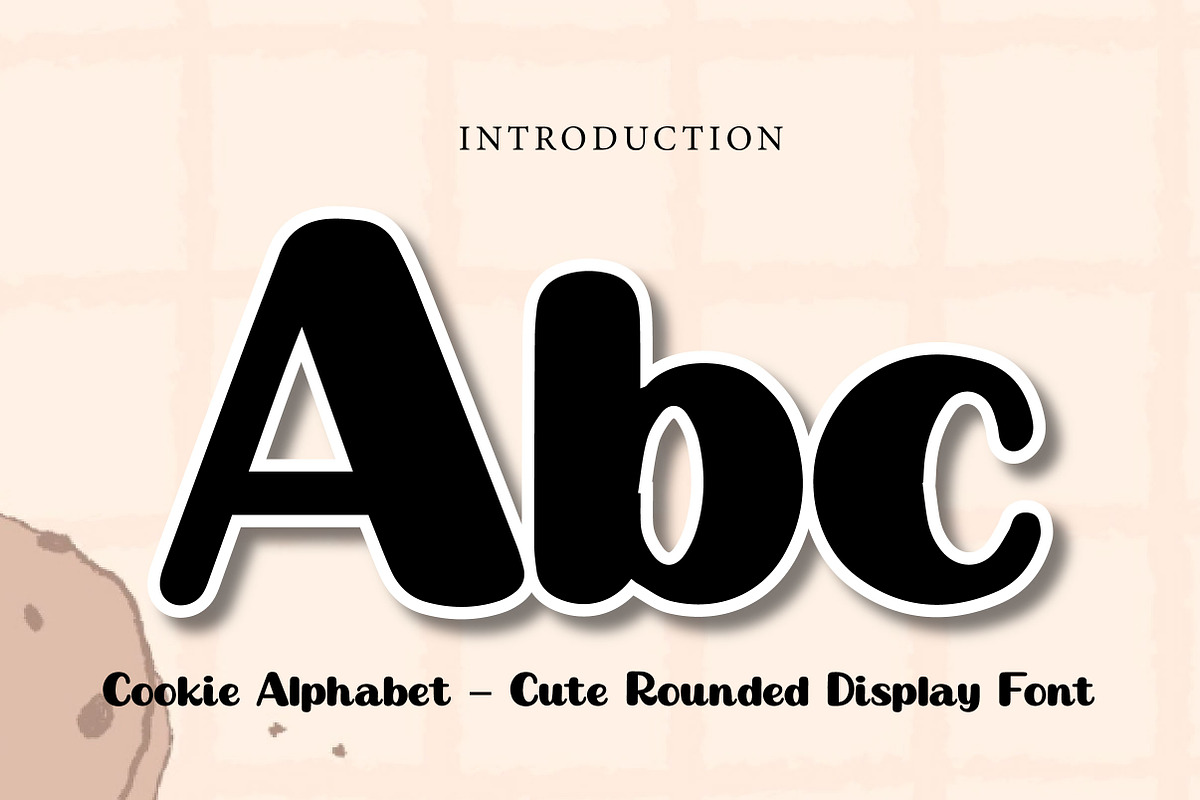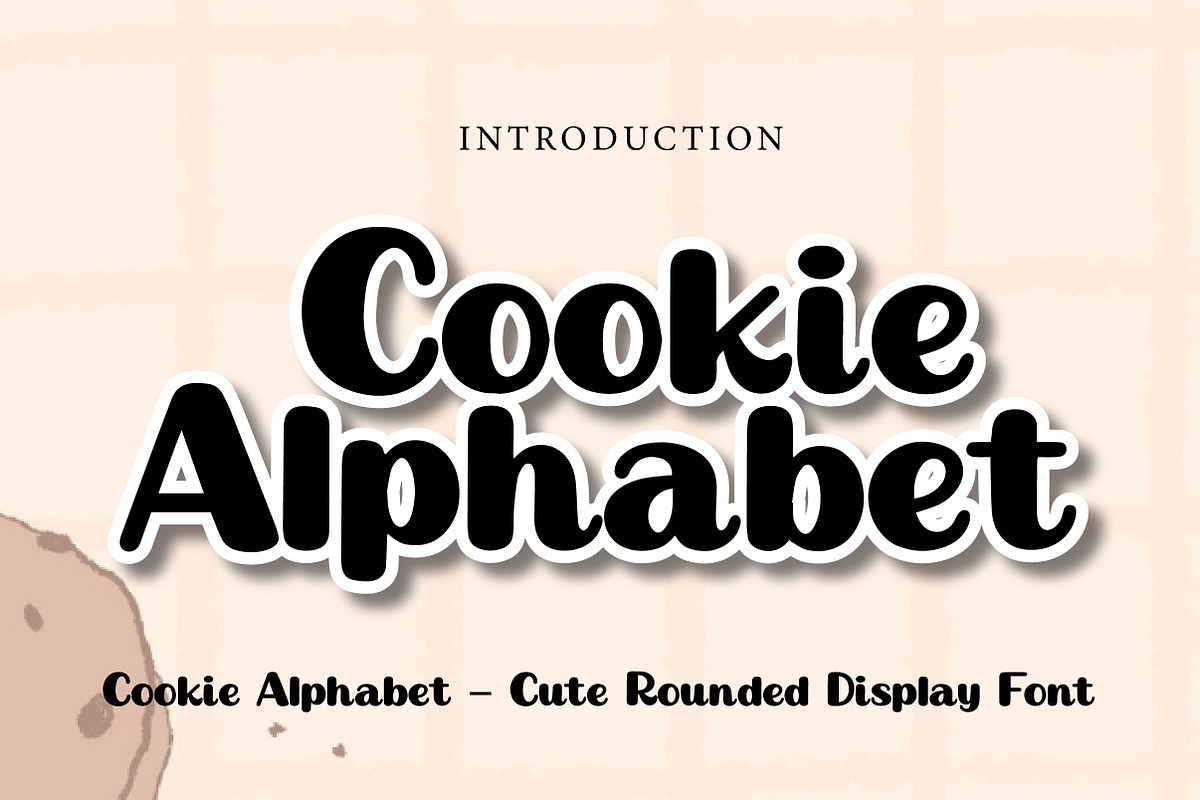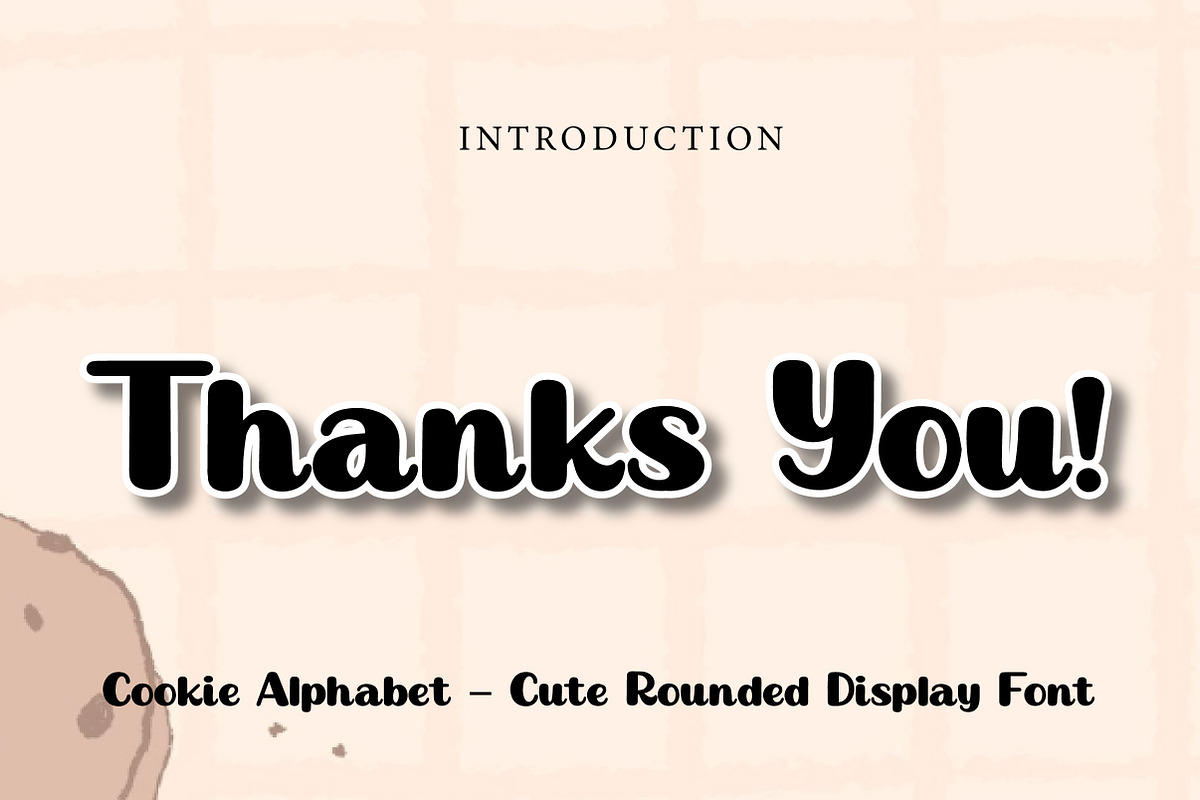
Cookie Alphabet
Cookie Alphabet – Cute Rounded Display Font
Cookie Alphabet is a cute, soft, and playful rounded display font, perfect for kids designs, bakery branding, packaging, posters, and fun creative projects.
Cookie Alphabet is a sweet and playful display font inspired by soft, rounded cookie shapes. With its smooth curves, bold structure, and friendly letterforms, this font creates a warm and deliciously fun look that instantly grabs attention.
Its cute and approachable style makes Cookie Alphabet perfect for projects that need a cheerful and lovable touch. Whether you are designing bakery branding, food packaging, kids projects, birthday invitations, posters, social media graphics, or playful logos, this font helps your typography stand out in a charming and memorable way.
The clean rounded design keeps your text highly readable while adding a soft and friendly personality. Suitable for both print and digital use, Cookie Alphabet is a great choice for designers who want a font that feels fun, sweet, and full of character.